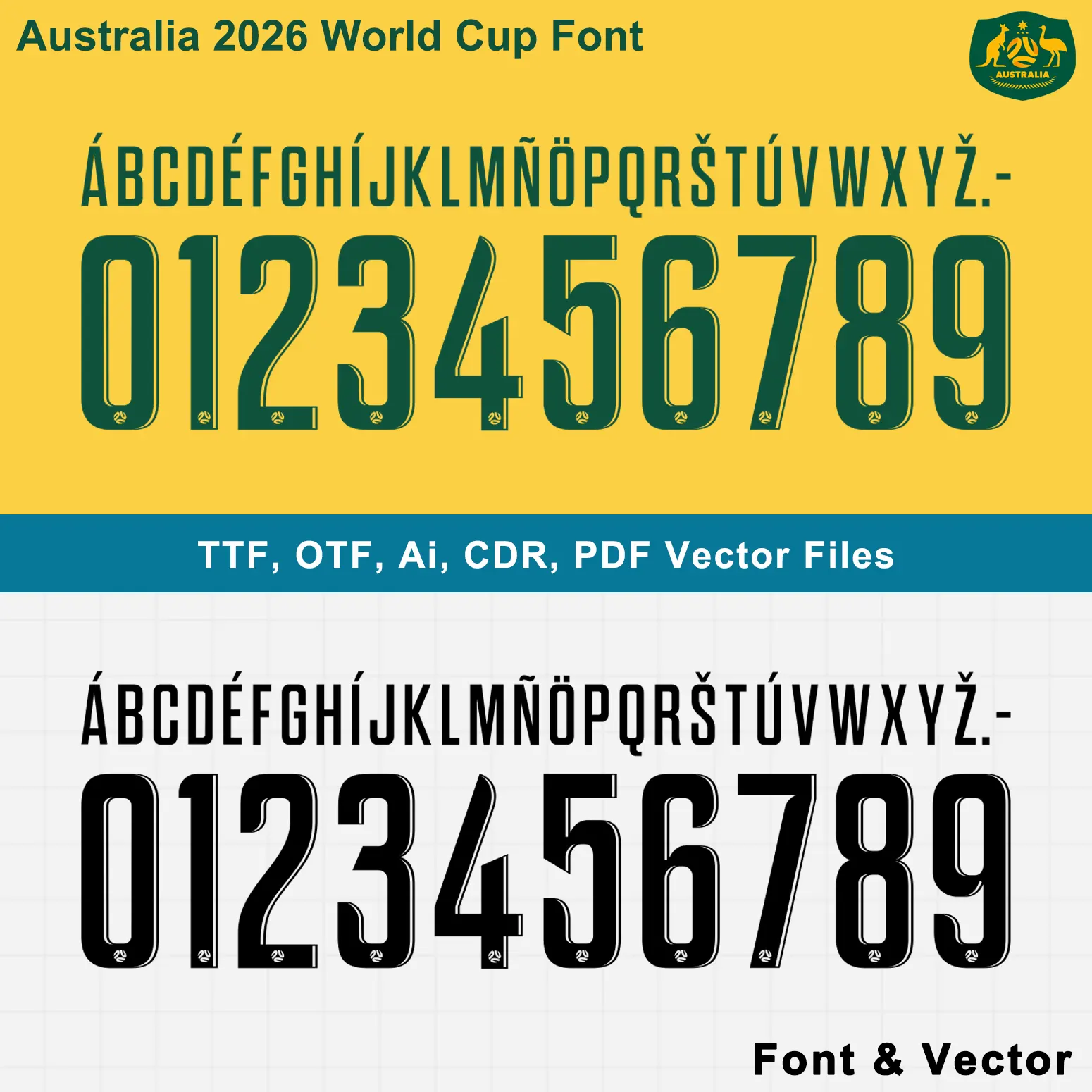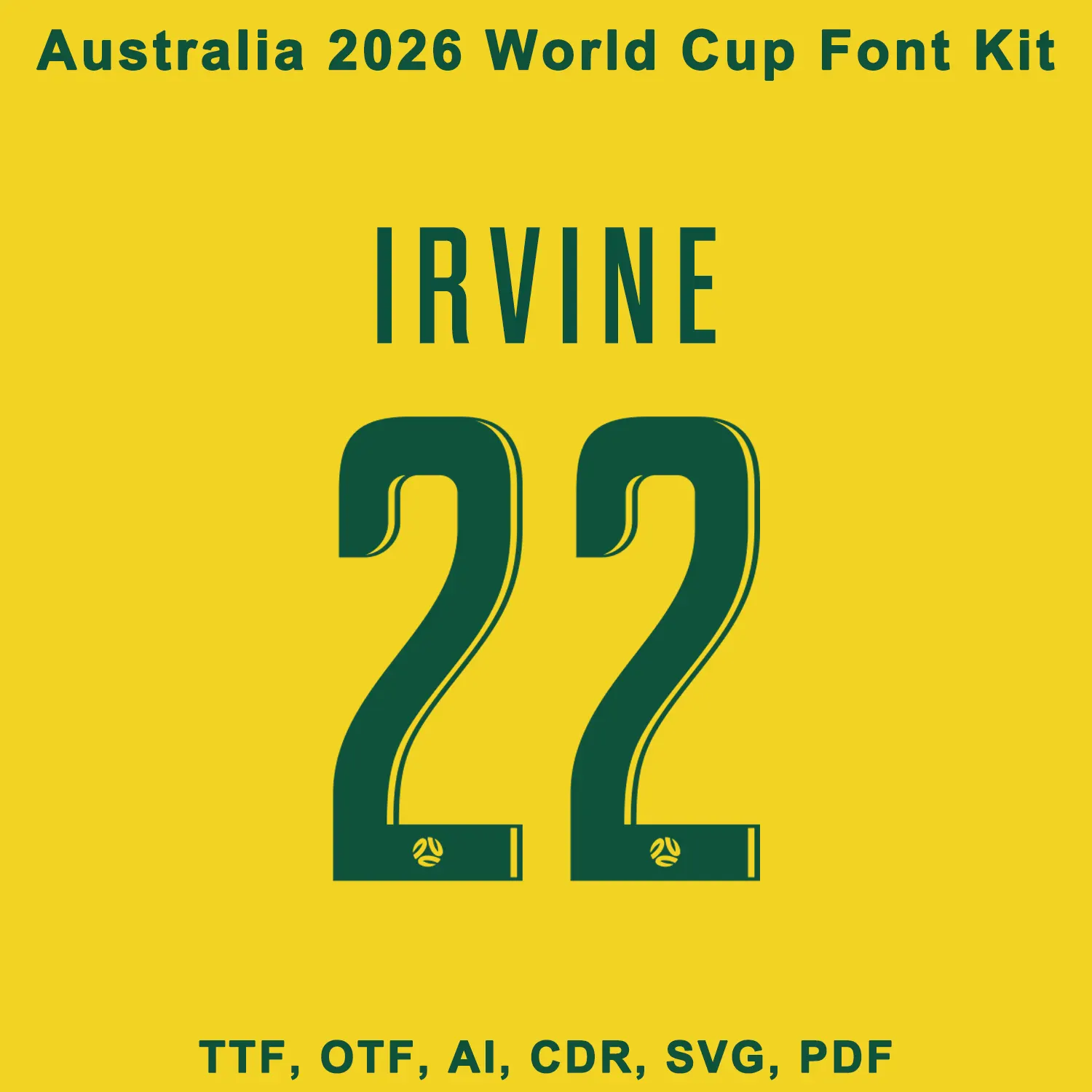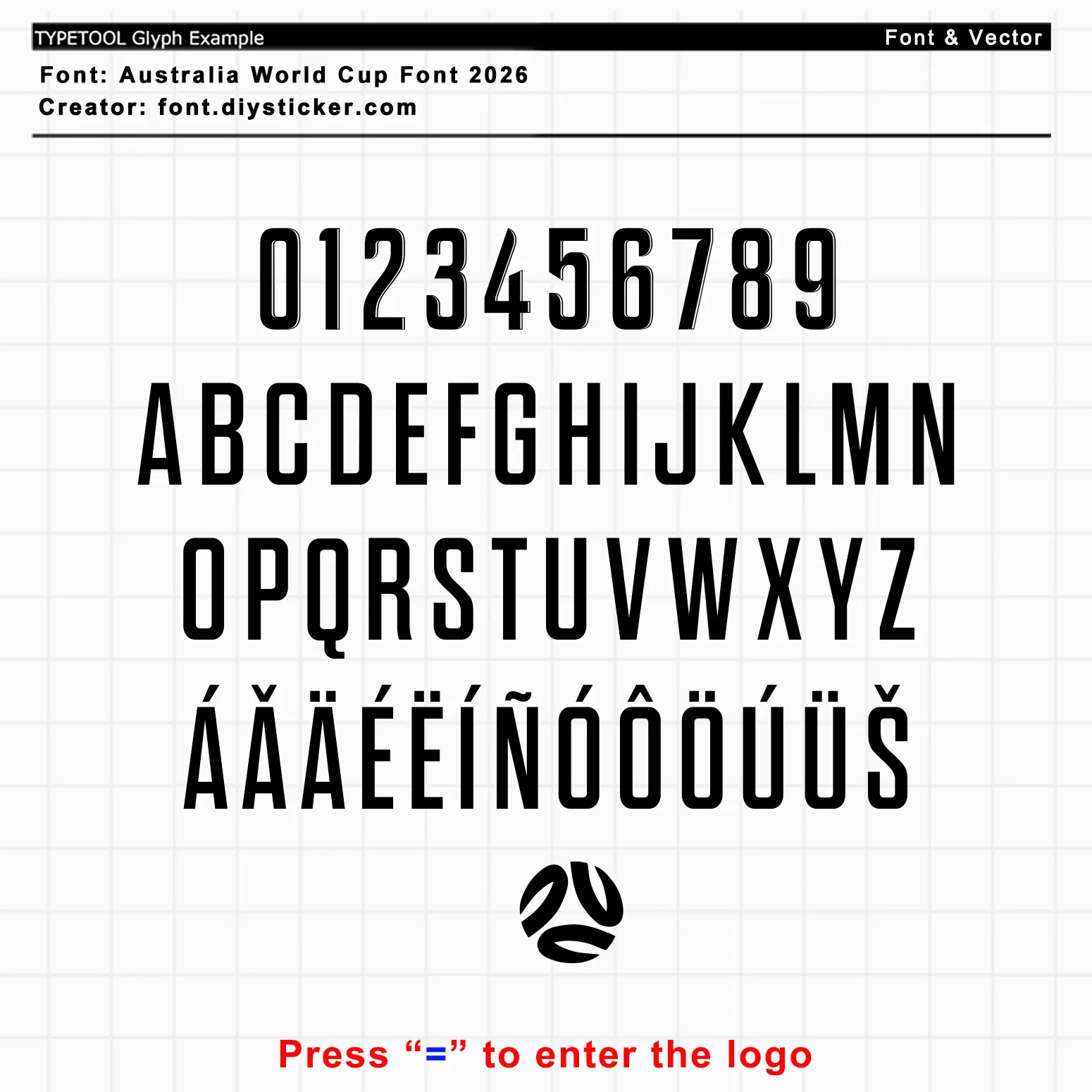
Australia Font 2026 World Cup Kit Overview
Our Australia Font 2026 World Cup digital package is designed to perfectly replicate the official typography used by Australia national soccer team for the 2026 FIFA World Cup tournament. Created for designers, kit restorers, and custom apparel makers, this kit includes all uppercase letters, multilingual accented characters, numerals, and special tournament crest glyphs required for authentic World Cup jersey personalization.
A: Absolutely. The Australia Font 2026 World Cup pack includes full sets of European accented letters (Á, É, Í, Ñ, Ö, Ü, Š, Ž and more) to support all Australian national team player names.